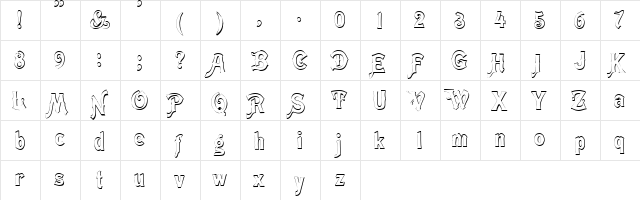
Meistersinger Regular
Design Context for Meistersinger Typeface
Meistersinger is a composed and adaptable typeface that performs quietly and consistently across a wide range of design contexts.